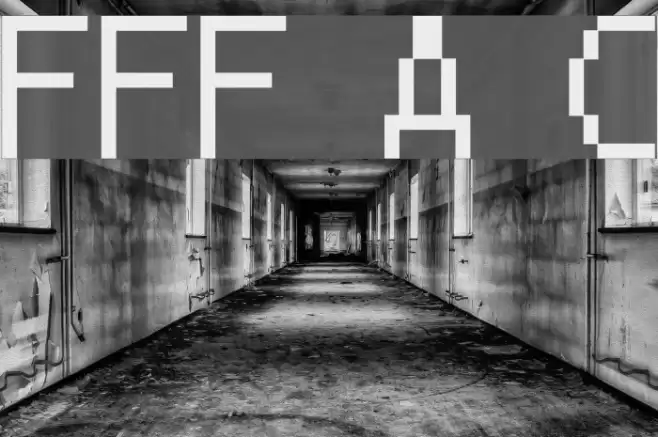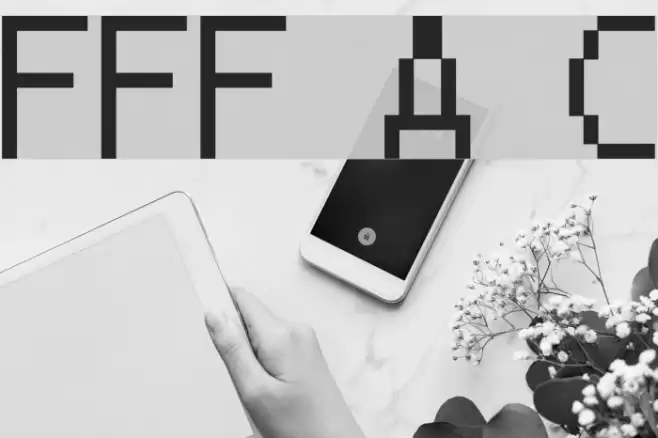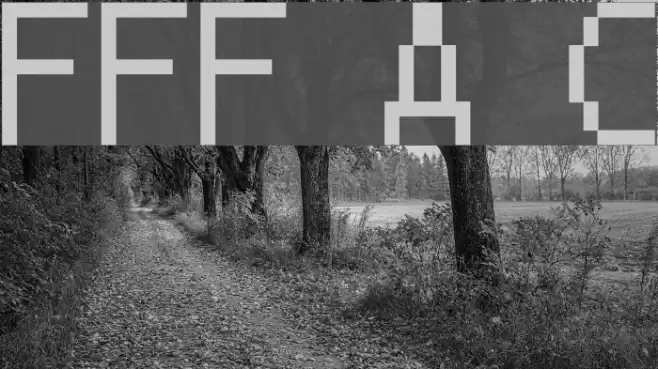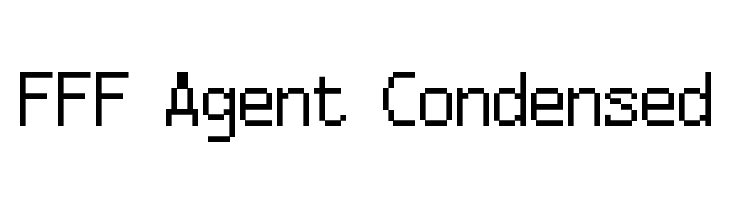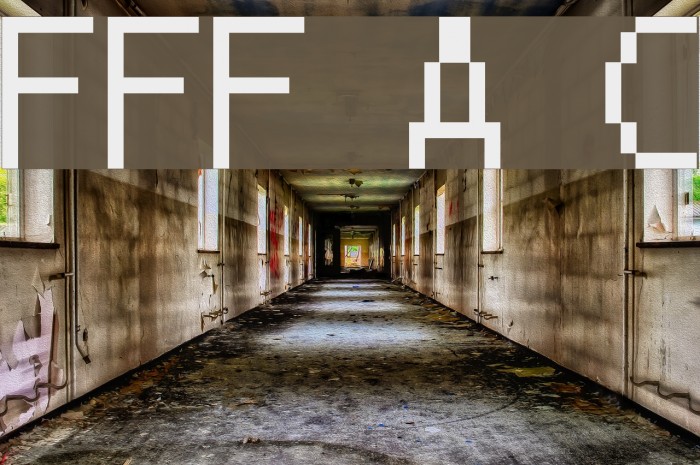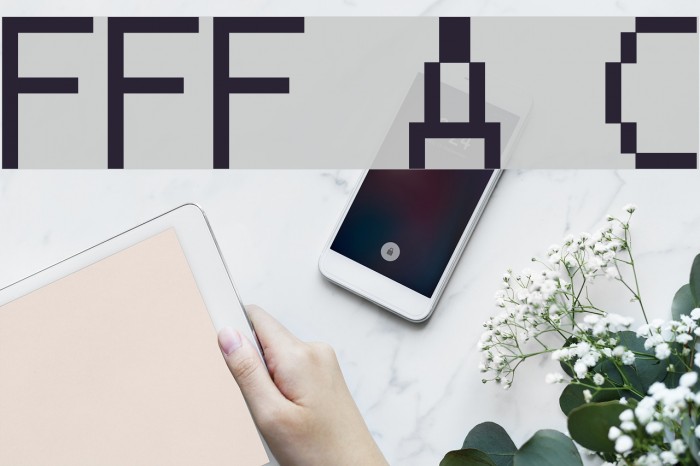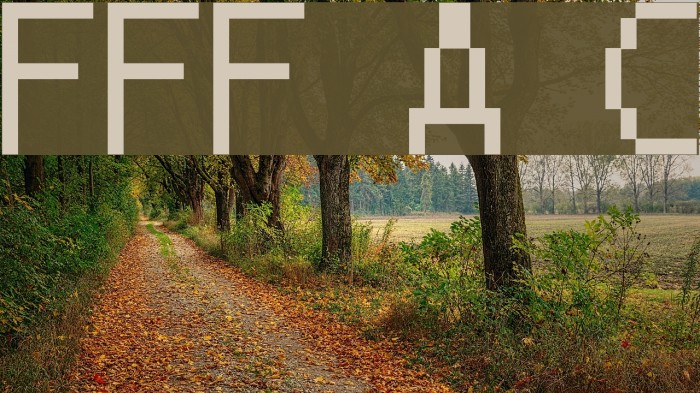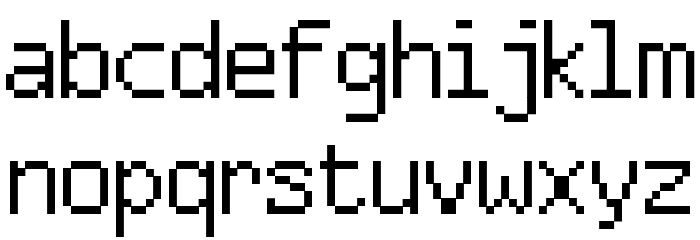
FFF Agent Condensed Font
FFF Agent Condensed Description
This font features a pixelated, grid-like structure that evokes a retro, digital aesthetic reminiscent of early computer graphics. Each character is composed of uniform square blocks, creating a monospaced appearance that is both consistent and structured. The uppercase and lowercase letters maintain a uniform height, contributing to its condensed style. The font's geometric nature gives it a modern yet nostalgic feel, suitable for projects that aim to capture a vintage digital look. Its simplicity and clarity make it highly legible, even at smaller sizes.
A pixelated, monospaced font with a retro digital aesthetic from Pixel fonts.
- Proposed Projects: Ideal for video game design, tech-themed posters, digital art projects, and retro-style branding.
- Overall Style: Retro, Digital
- Use Case: Headlines, Logos, Digital displays